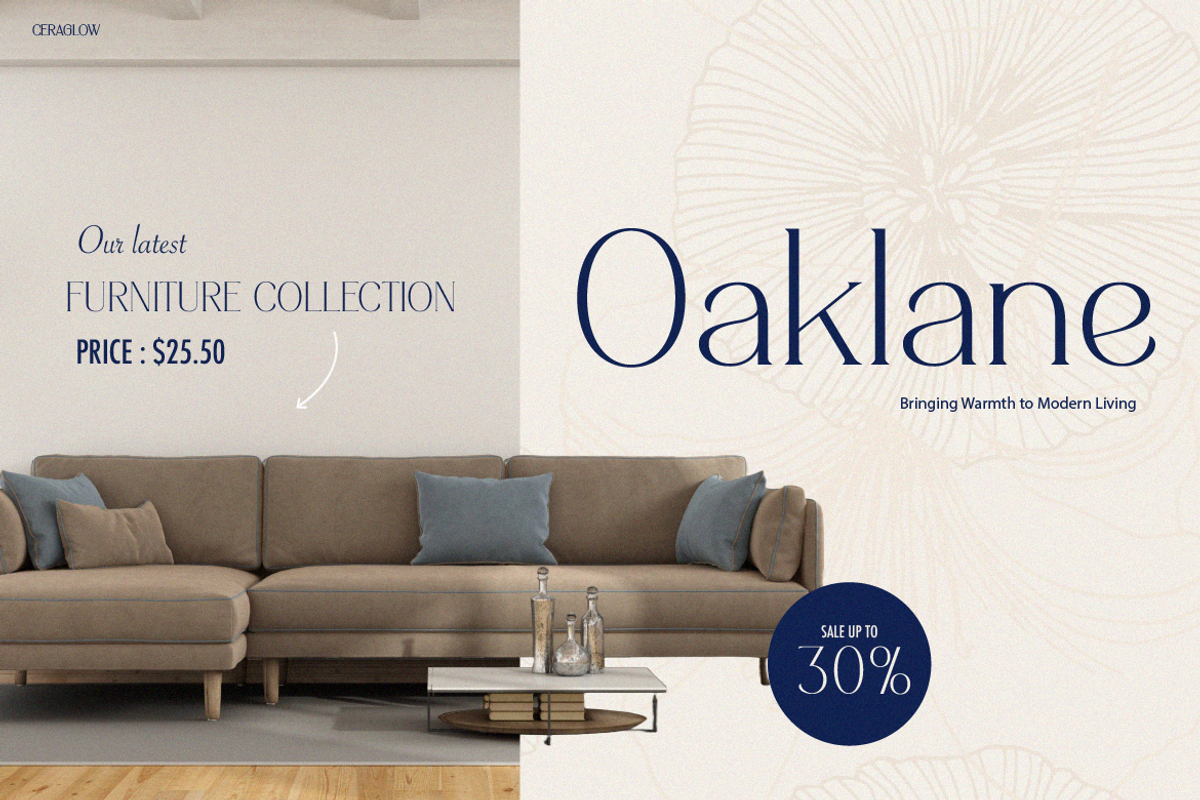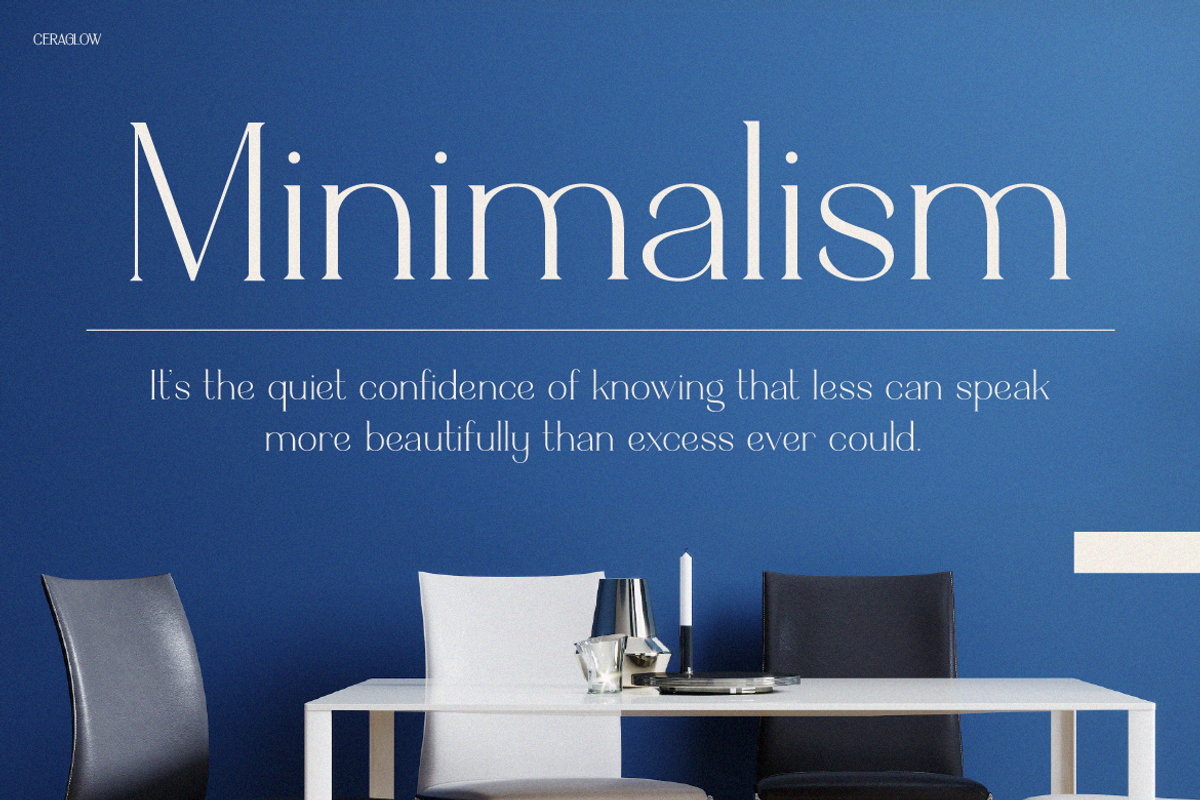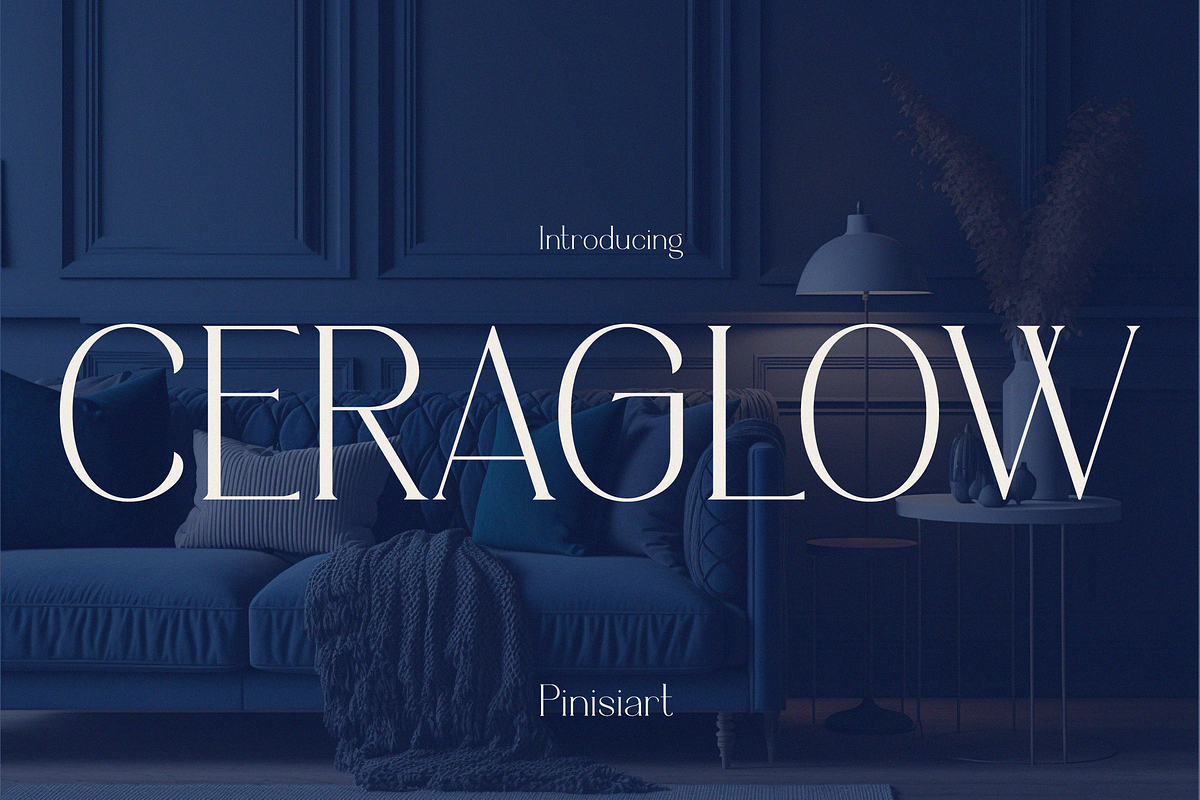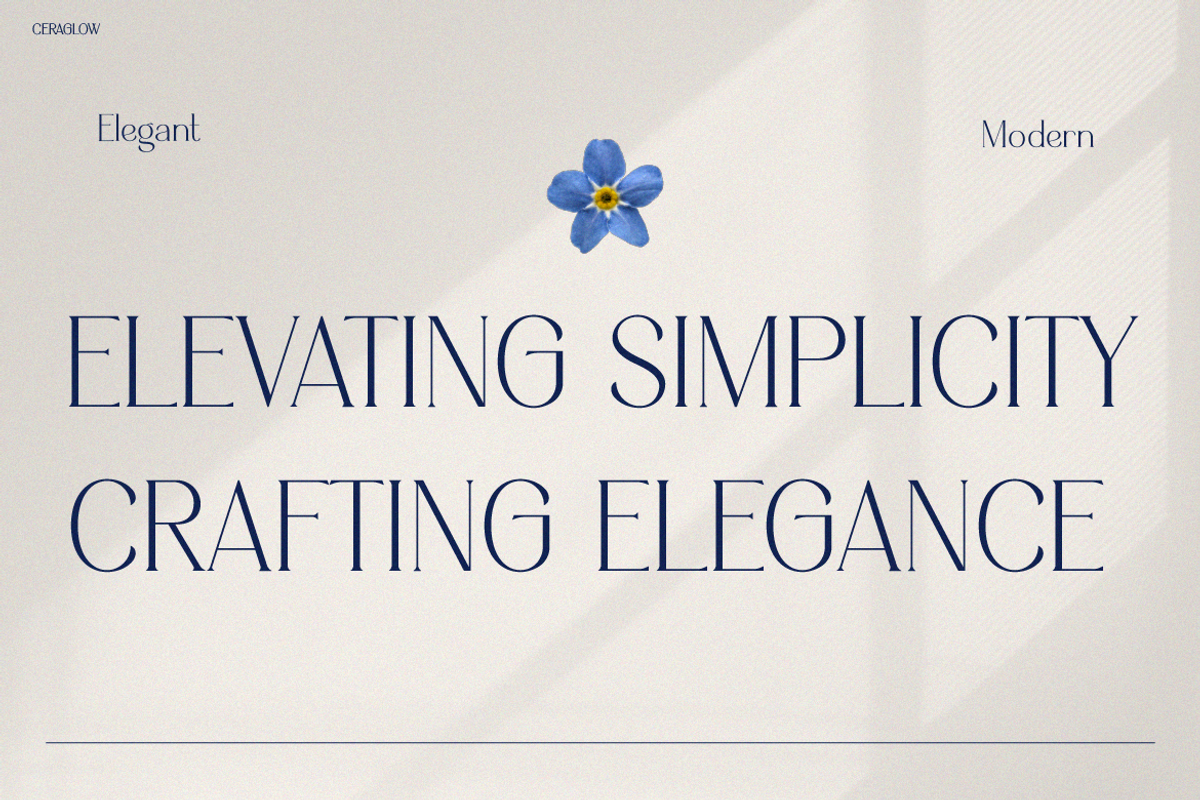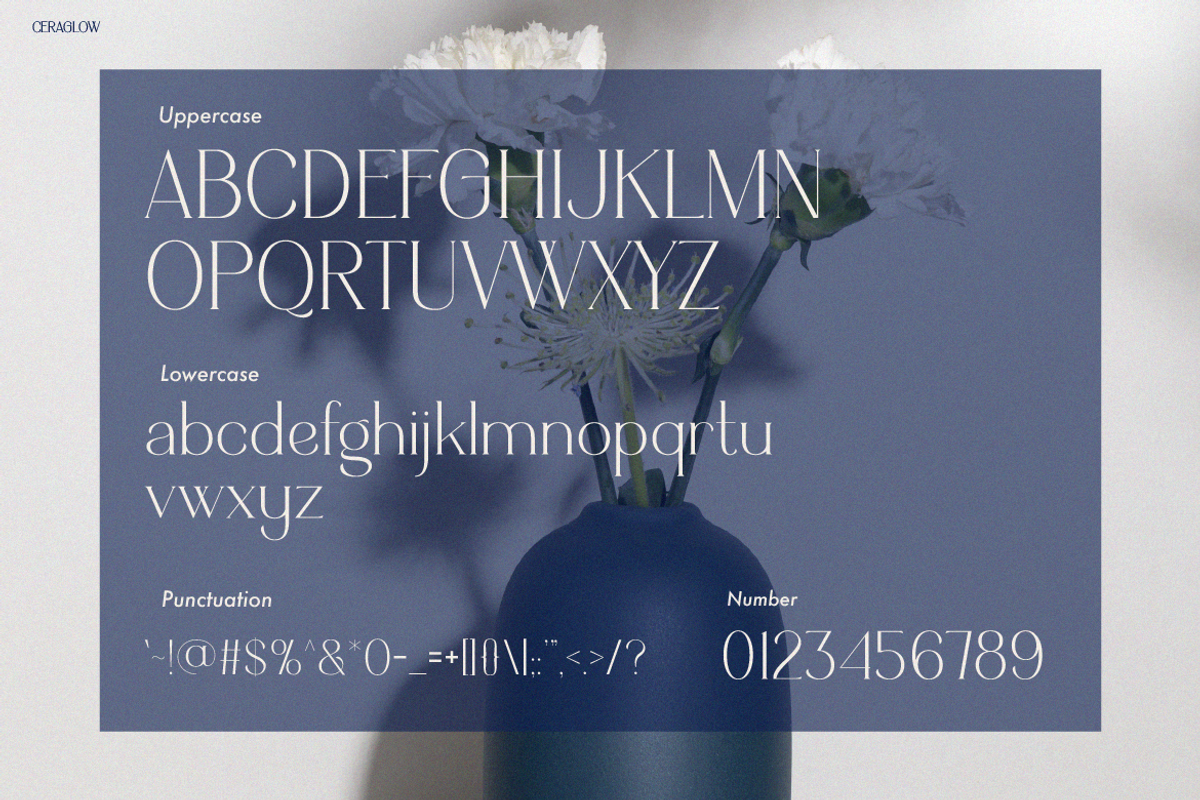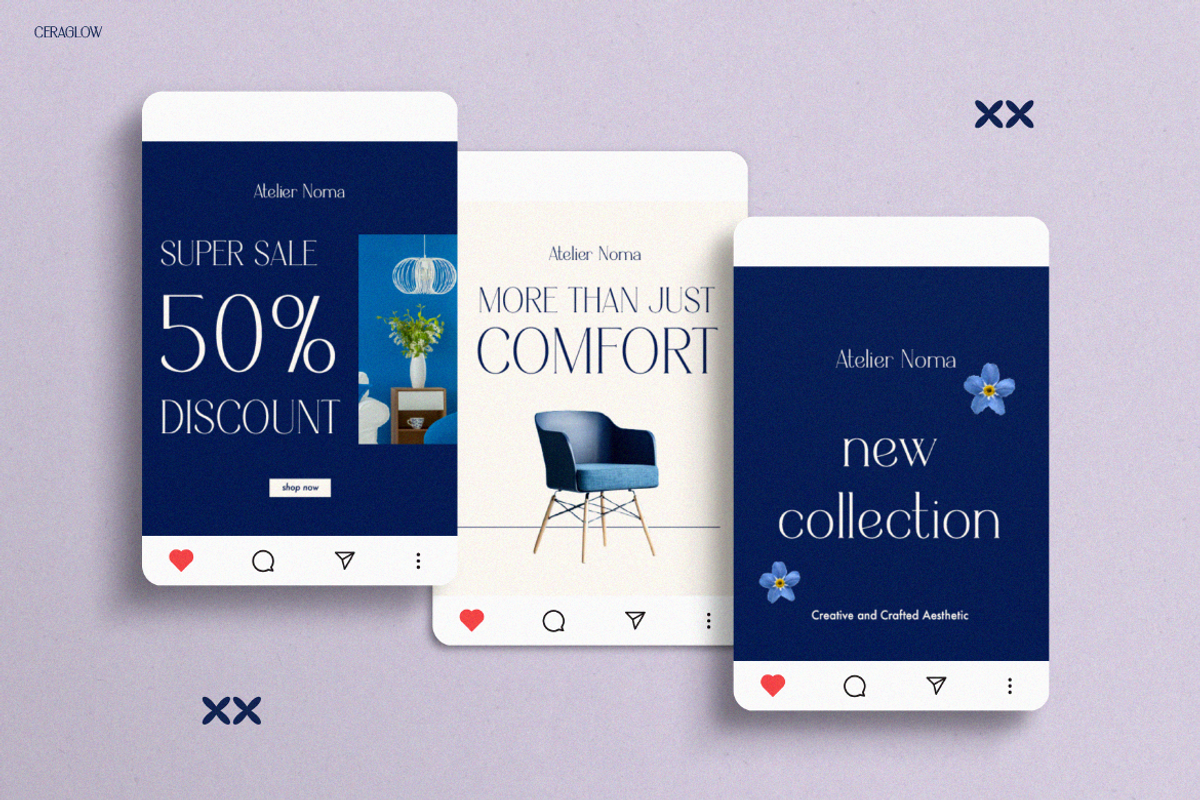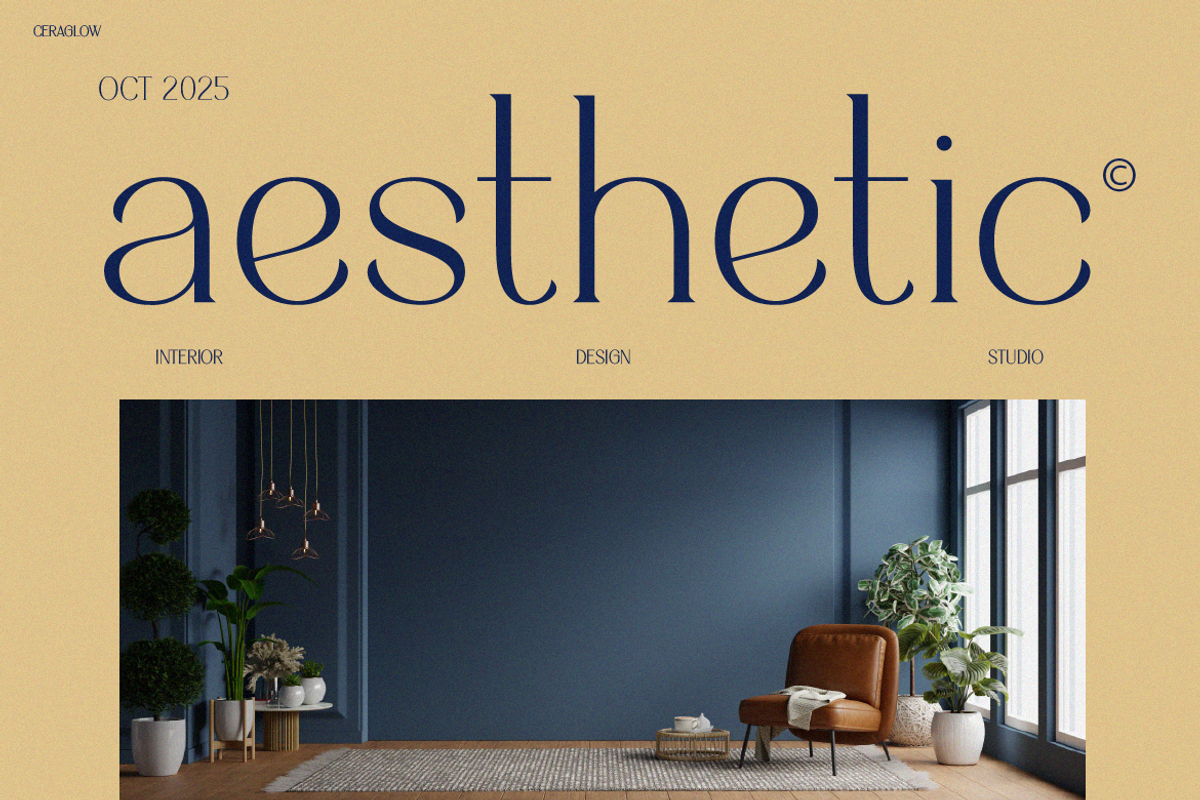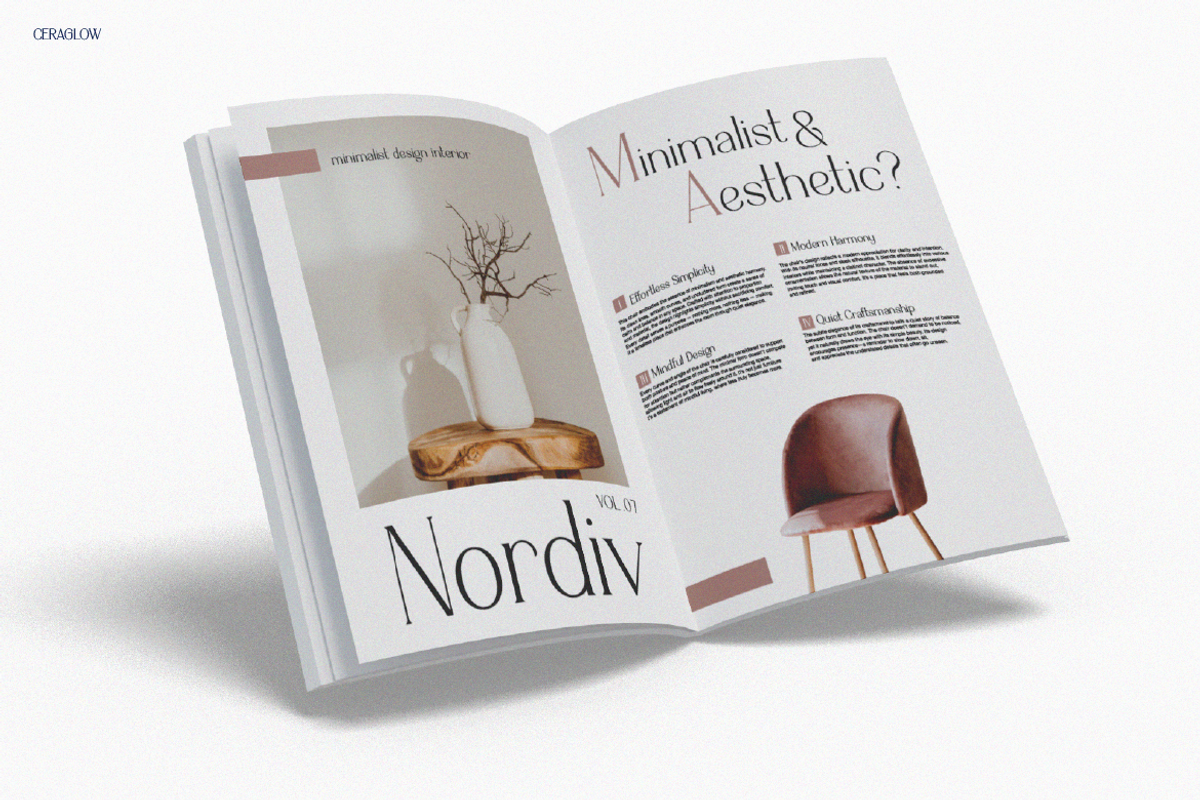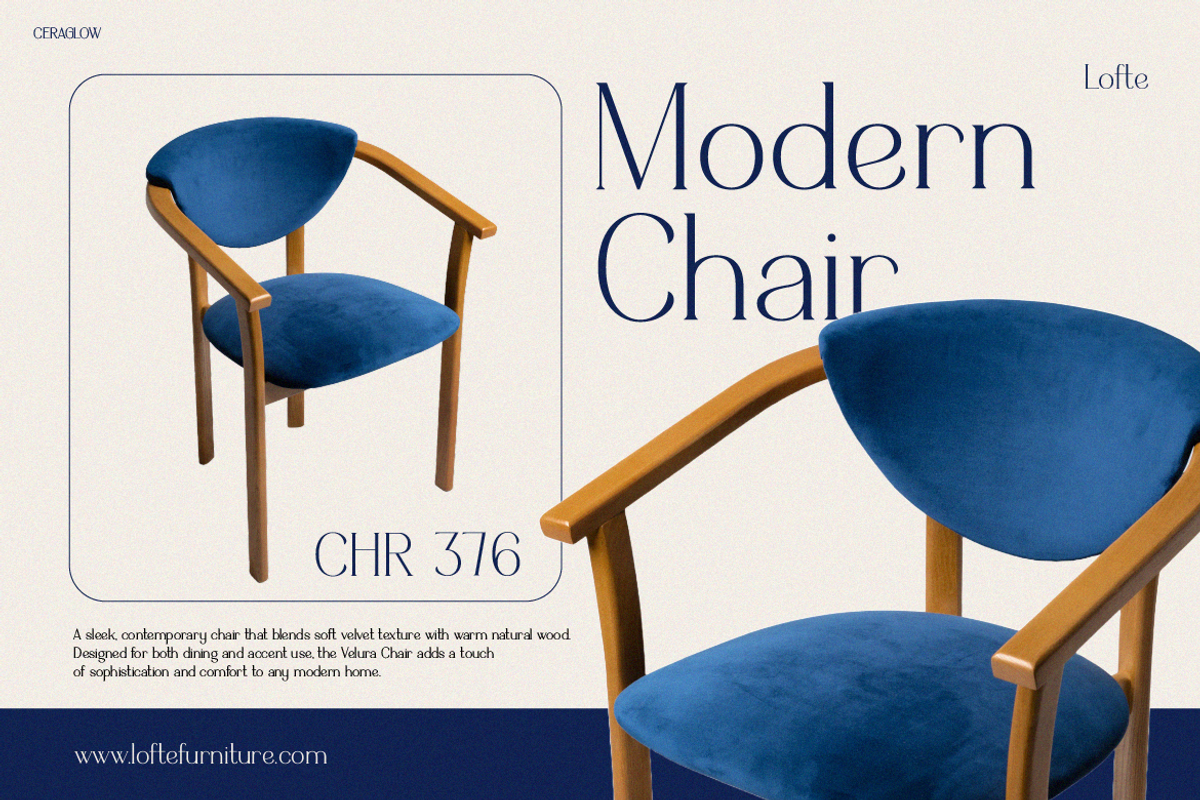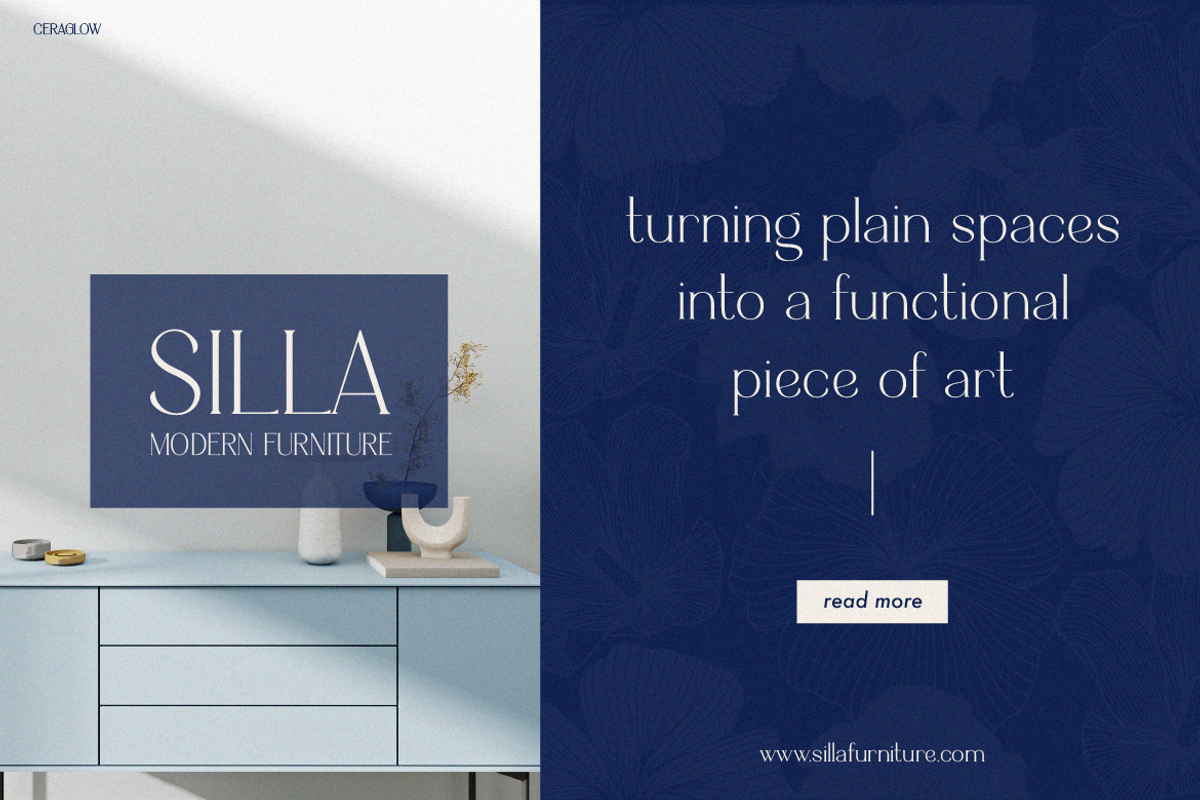
CERAGLOW
Instagram Font CERAGLOW – Where Minimal Meets Magnificent
Timeless Beauty in Every Curve Instagram Font CERAGLOW perfectly captures the harmony between elegance and modern minimalism. Each letter flows gracefully, and every curve reflects thoughtful design. Moreover, its sleek serifs and refined proportions make your words look instantly luxurious. Rather than being just another typeface, CERAGLOW turns ordinary text into a refined visual experience.
Inspired by contemporary interiors and minimalist fashion, this font delivers a calm yet confident charm. Its balance between soft lines and strong presence creates a sense of timeless sophistication. Whether you design for social media, magazines, or branding materials, CERAGLOW consistently enhances your visuals with polished precision. Furthermore, it adapts beautifully to different design styles — from chic simplicity to high-end luxury.